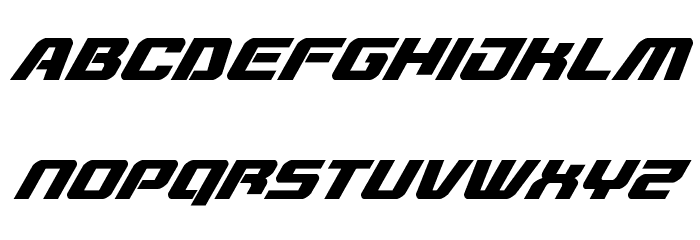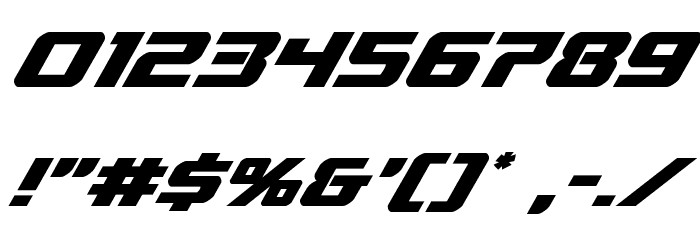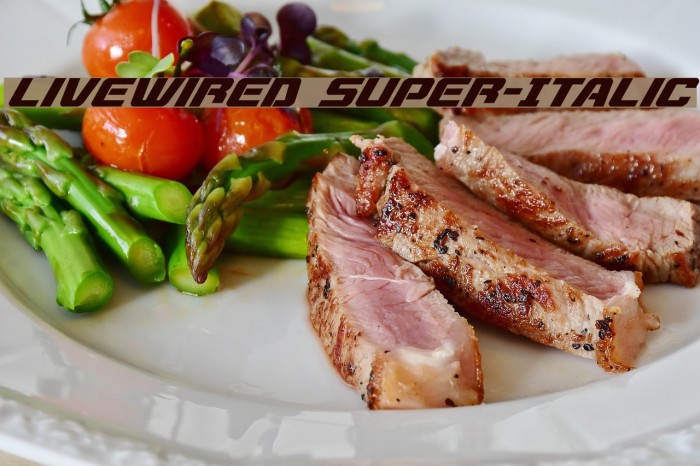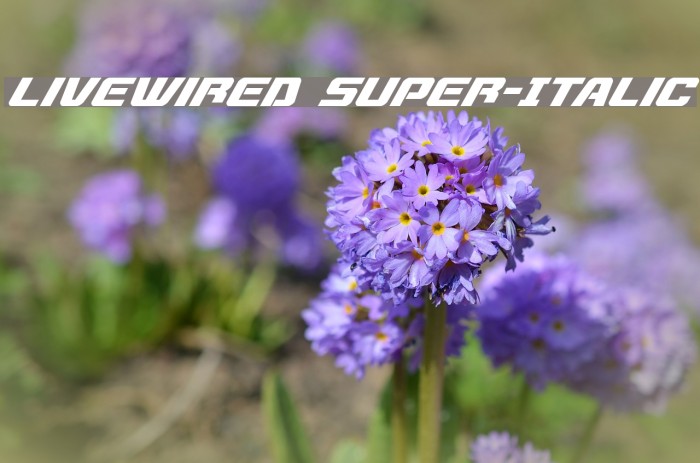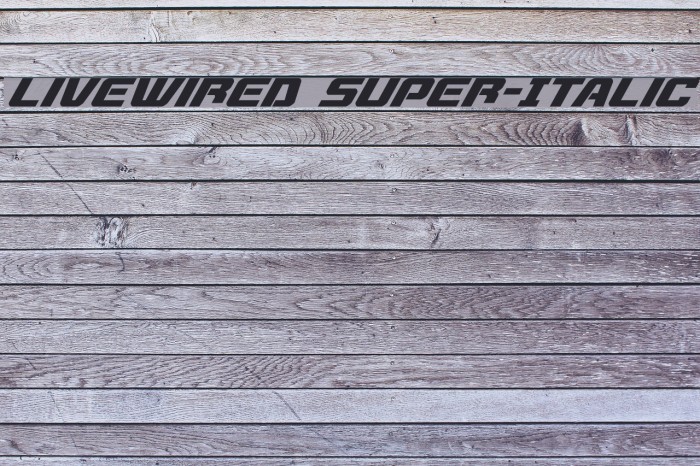
Livewired Super-Italic Font
This font features a bold and dynamic style with a strong italic slant, giving it a sense of motion and energy. The characters are wide and angular, with sharp edges and a futuristic appearance. The design is consistent across uppercase, lowercase, and numerical characters, maintaining a cohesive look. Special characters are also included, matching the overall aesthetic. The font's boldness and unique style make it suitable for attention-grabbing designs.
A bold, italic, and futuristic font with sharp, angular characters.
- Proposed Projects: Ideal for sports branding, video game titles, tech-related logos, and dynamic posters.
- Width: Expanded